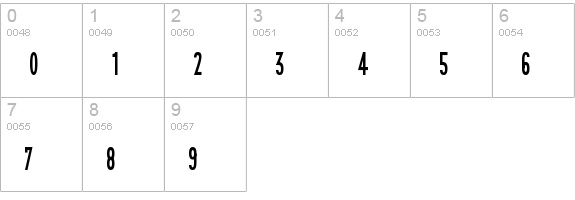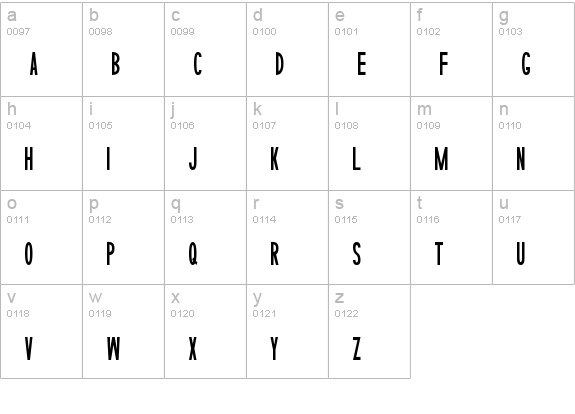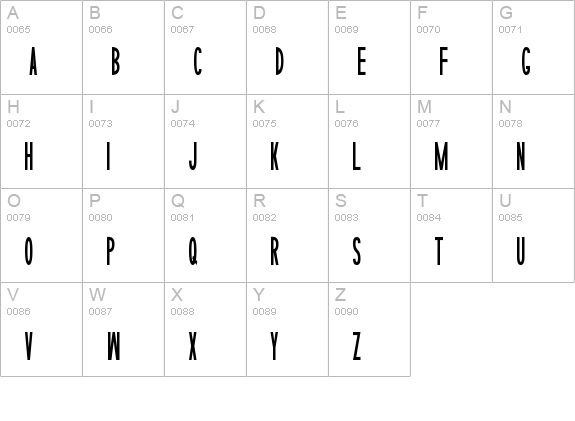
Sophisticated Slims Font Details
Sophisticated Slims is a free for personal use font in the General > Sans-Serif category, designed by Darrell Flood. It has been downloaded 453 times and is available for Windows, Mac and Linux.
Sophisticated Slims font is a sleek and elegant typeface designed for those who appreciate a touch of sophistication in their designs. With its slim and graceful letterforms, this font exudes a sense of style and refinement that is perfect for projects that require a modern and polished look. The tall and slender characters of Sophisticated Slims add a sense of elegance and class to any design, making it ideal for use in branding, logos, invitations, and more.
What sets Sophisticated Slims apart is not just its aesthetic appeal, but also its versatility and readability. Whether used in large headlines or smaller body text, this font maintains its legibility and charm, making it a reliable choice for a wide range of design applications.